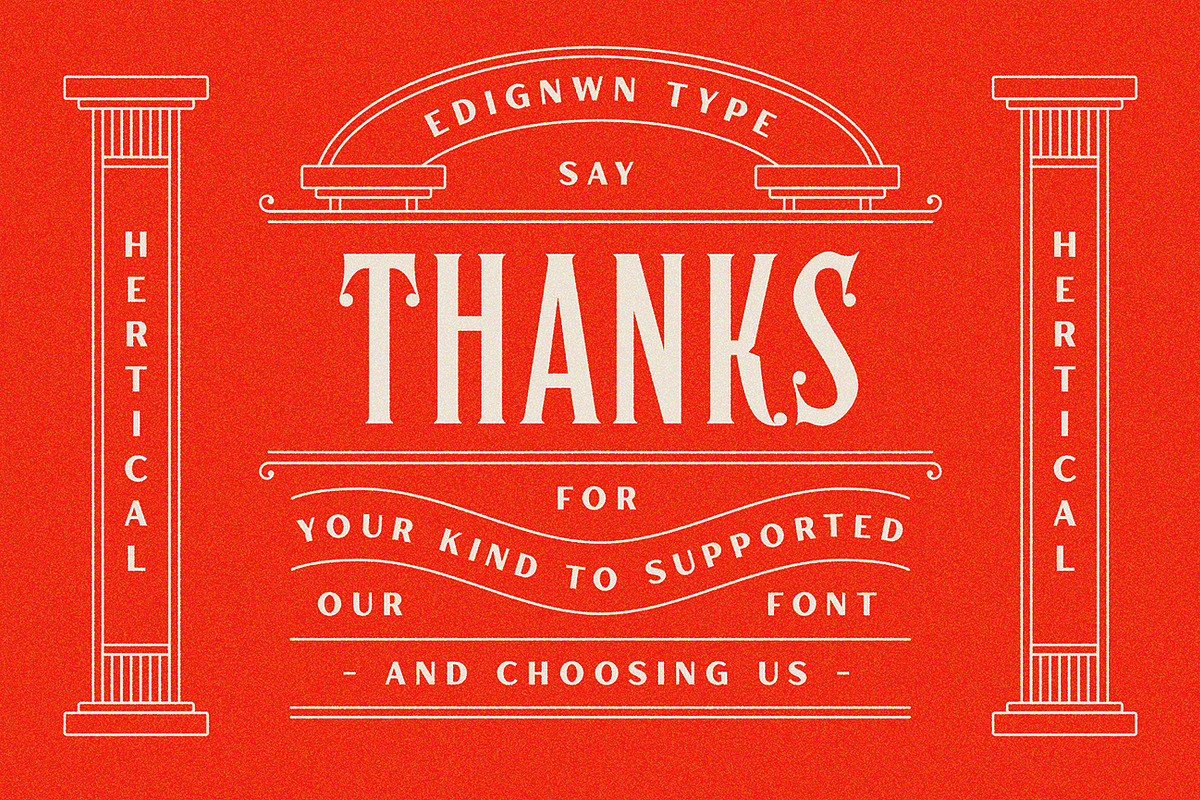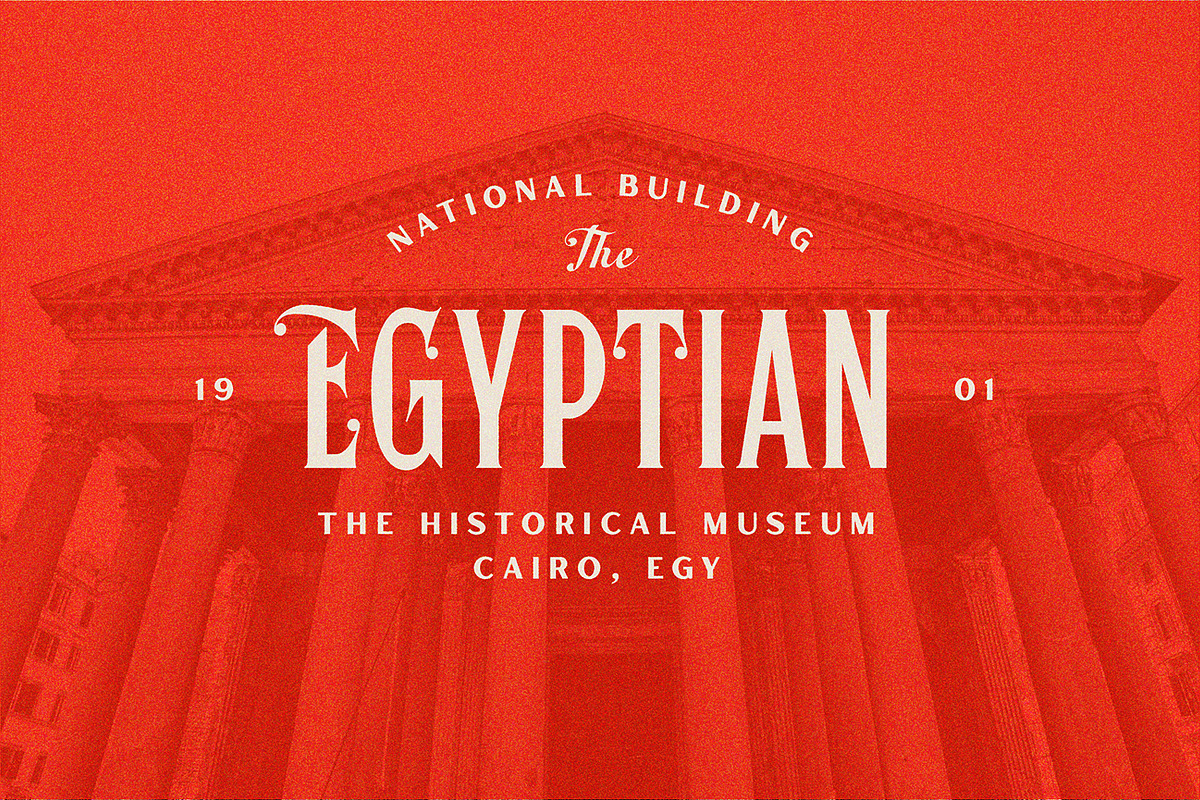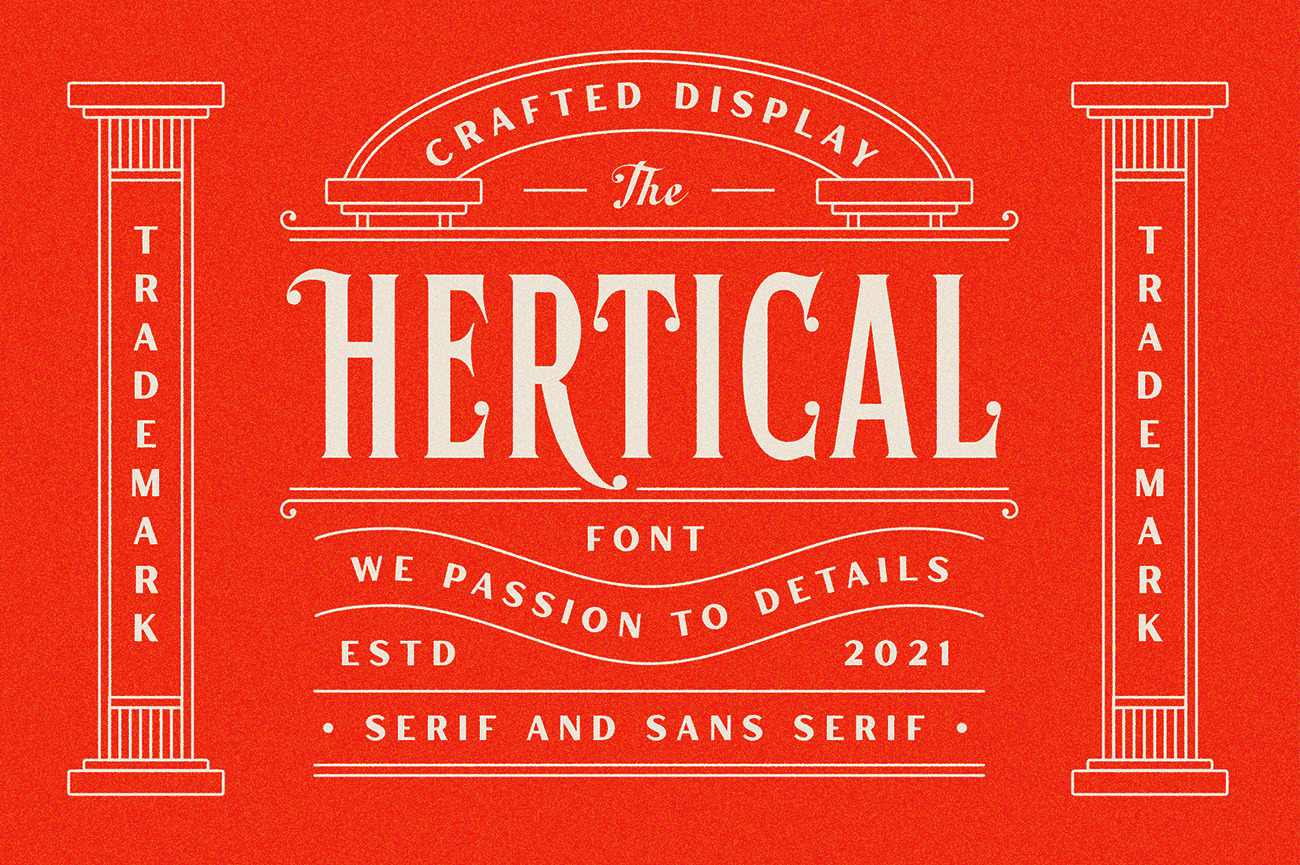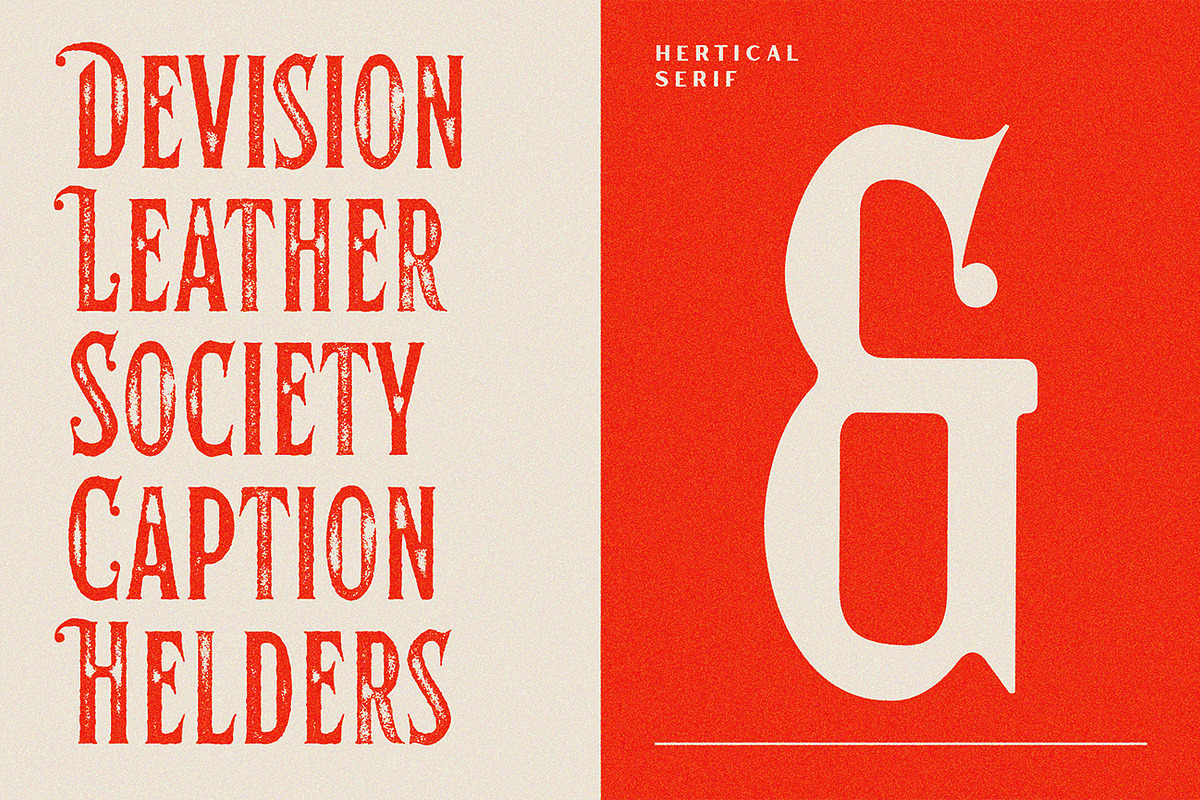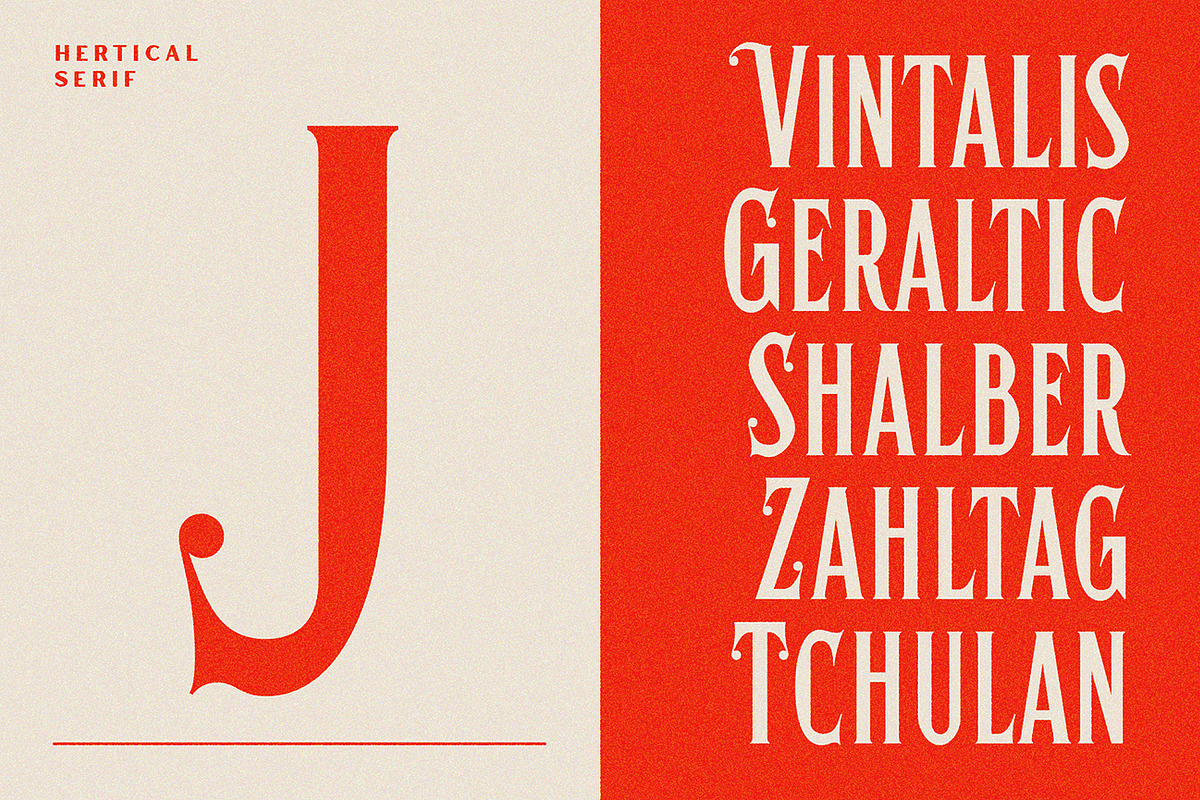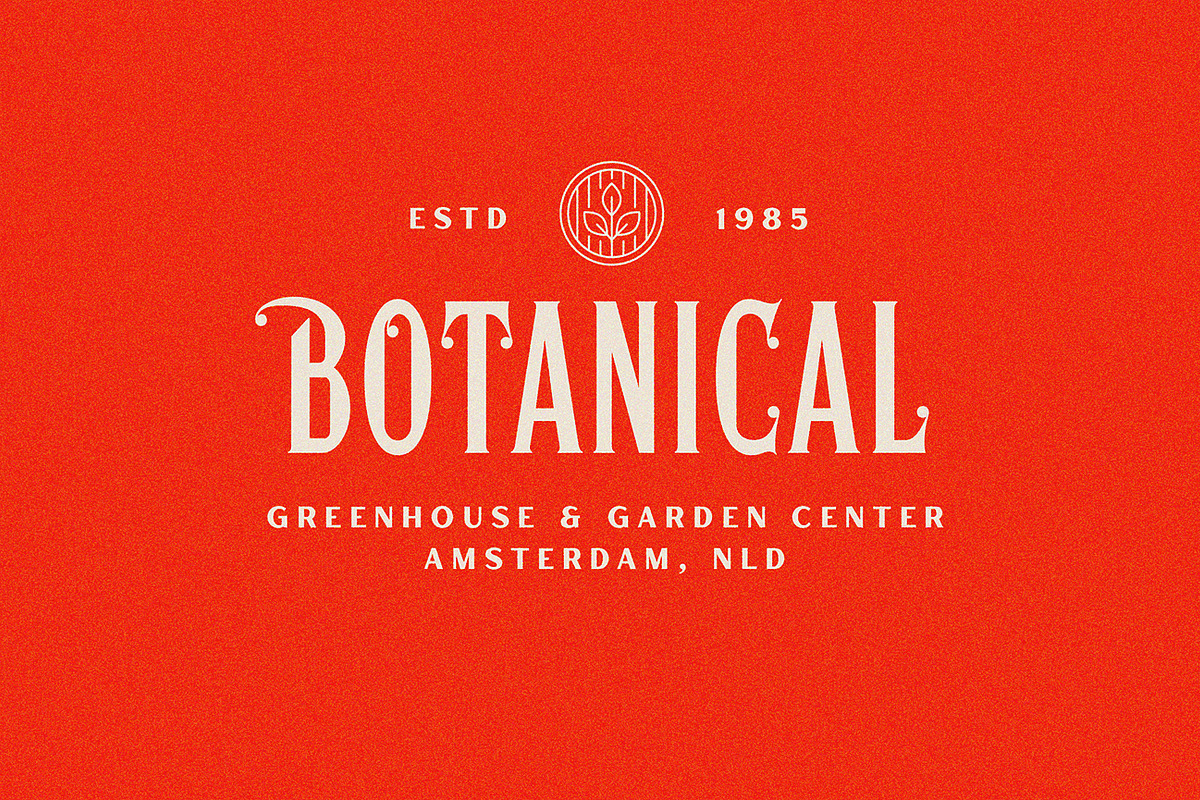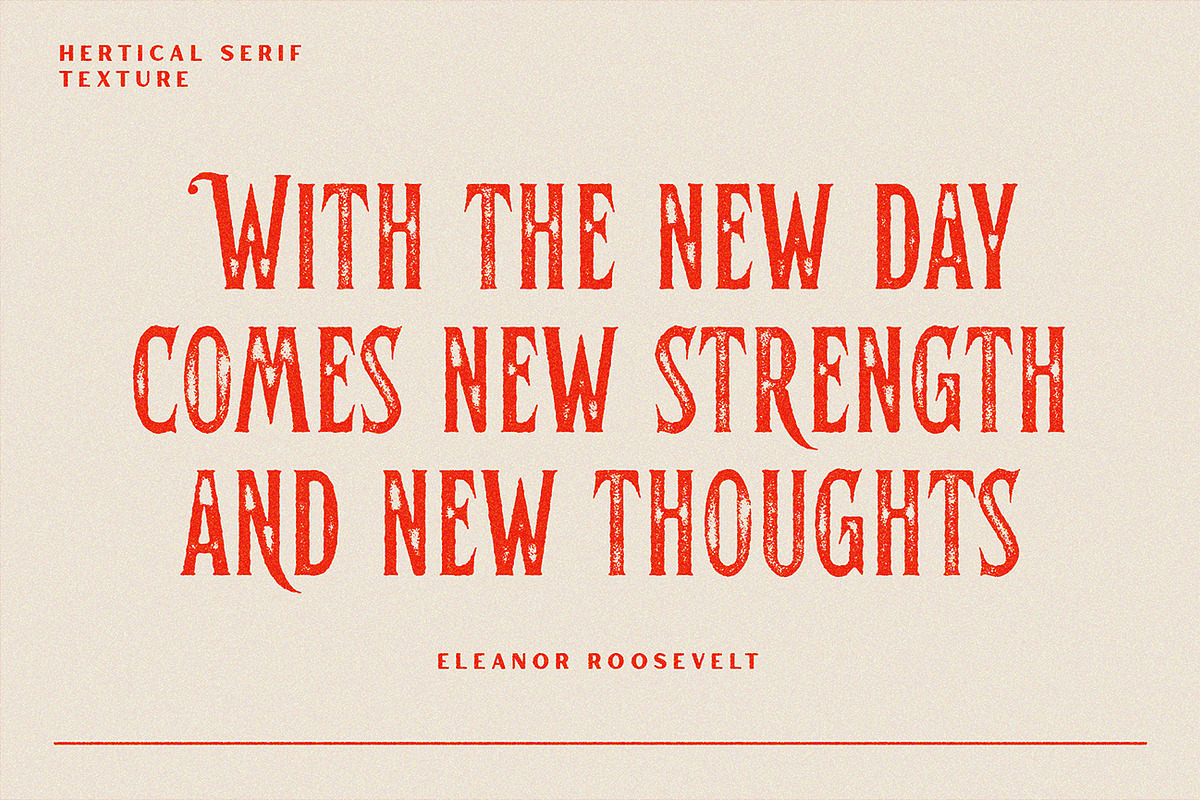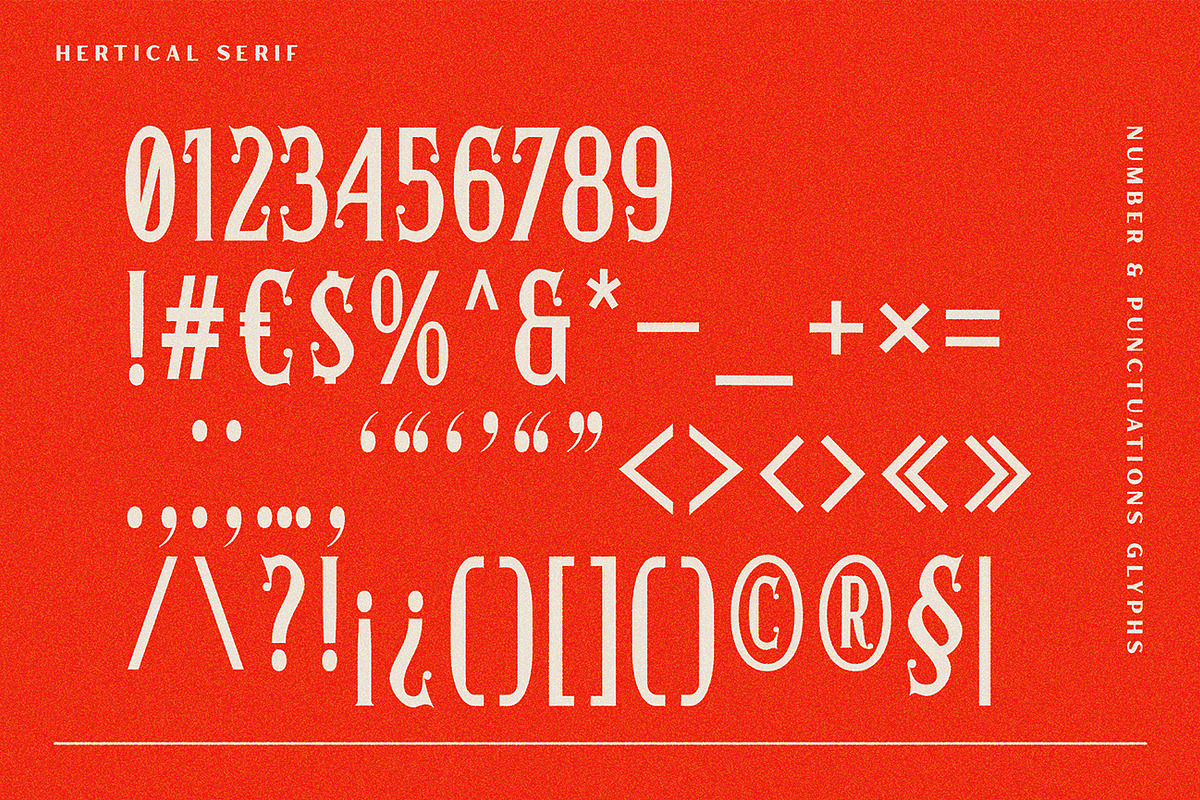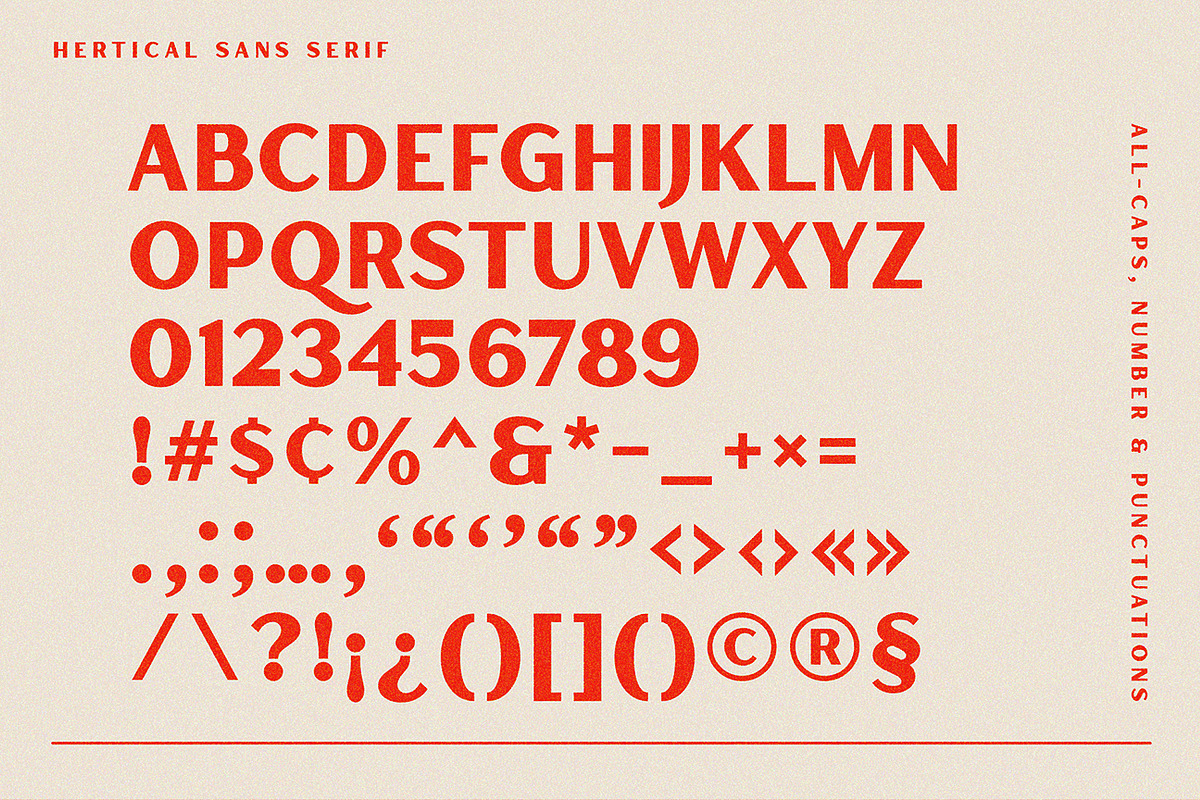
Hertical - Crafted Display Font
The Hertical Font come with two typefaces, serif and sans serif. Every typeface contains four styles (regular, smooth, rough and texture). This matches applies in some designs such as the logotype, poster, label, badge, packaging, branding, quotes and more custom design.
Hertical includes :
- 2 typefaces (serif and sans serif)
- 4 style typefaces (regular, smooth, rough and texture)
- All-caps, numeral, symbol and punctuation
- 2 sets alternates on serif font